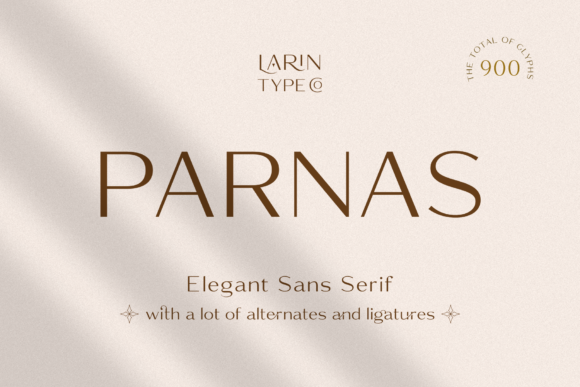
Introducing Parnas Sans - A Sans Serif Beauty For Your Next Creative Masterpiece!
Immerse yourself in the world of timeless elegance with Parnas Sans, a classic sans serif font that exudes sophistication and charm. Its versatile nature empowers you to explore a boundless realm of creative possibilities, from heartfelt greeting cards to whimsical kids' crafts. Each letterform is crafted with meticulous precision, promising a pristine visual experience that will elevate your designs to new heights.
With Parnas Sans, the power of expression is at your fingertips. Its effortless flow and graceful curves lend an air of refinement to any project, whether you're crafting a captivating poster or adding a touch of whimsy to a handmade gift. The font's PUA encoding unlocks a treasure trove of glyphs and swashes, empowering you to unleash your creativity and make your designs truly shine.
Indulge in the timeless beauty of Parnas Sans, where classic elegance meets modern versatility. Let this extraordinary font guide you on an artistic journey, transforming your vision into a breathtaking reality. Experience the magic of Parnas Sans today and elevate your designs to the next level of sophistication.